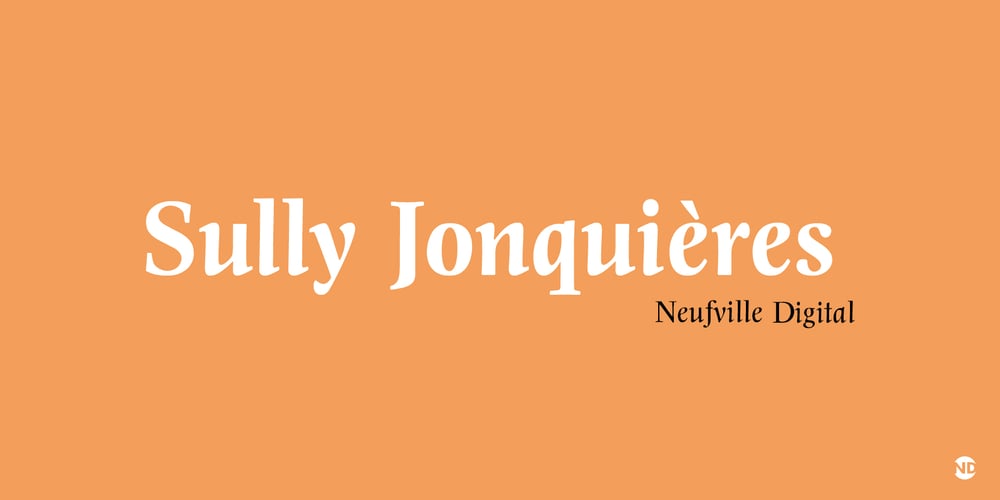
Sully Jonquieres ND Font Family was designed by José Mendoza y Almeida and published by Neufville Digital. Sully Jonquieres ND contains 2 styles and family package options. Sully-Jonquières is Mendoza’s most original calligraphic alphabet. It was commissioned by the French publisher Henri Jonquières. Its characters are based on the shape of cursive letters. Its range of possible usages is very varied: signage, headlines, packaging, etc. It brings personality and elegance to any design.Sully-Jonquières is a trademark of BauerTypes SL